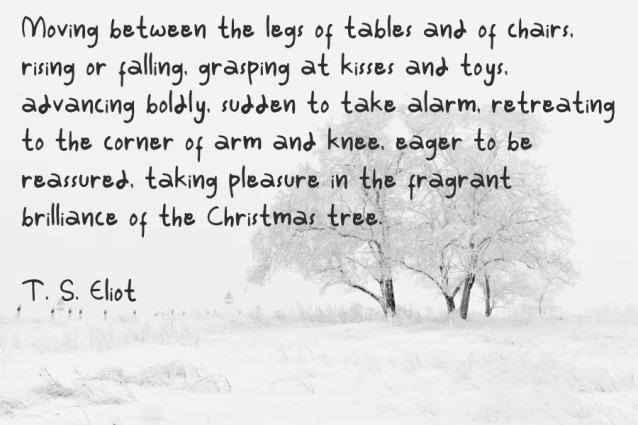
Take Care Script Font is a simple and friendly handwritten font. Its natural and unique style makes it incredibly fitting to a large pool of designs. The only limit is your imagination!
| Designer Name: | Koplexs Studio |